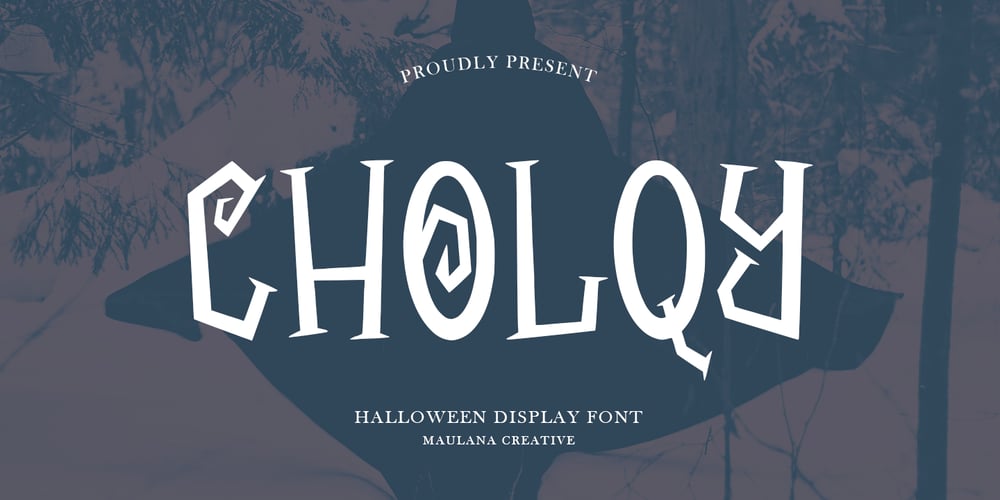
MC Cholqy Font Family was designed by Gilang Maulana and published by Maulana Creative. MC Cholqy contains 1 styles and family package options. Cholqy halloween display font. Heavy stroke, fun character with a bit of ligatures. To give you an extra creative work. Cholqy halloween display font support multilingual more than 100+ language. This font is good for logo design, Social media, Movie Titles, Books Titles, a short text even a long text letter and good for your secondary text font with script or serif. Make a stunning work with Cholqy halloween display font. Cheers, Maulana Creative